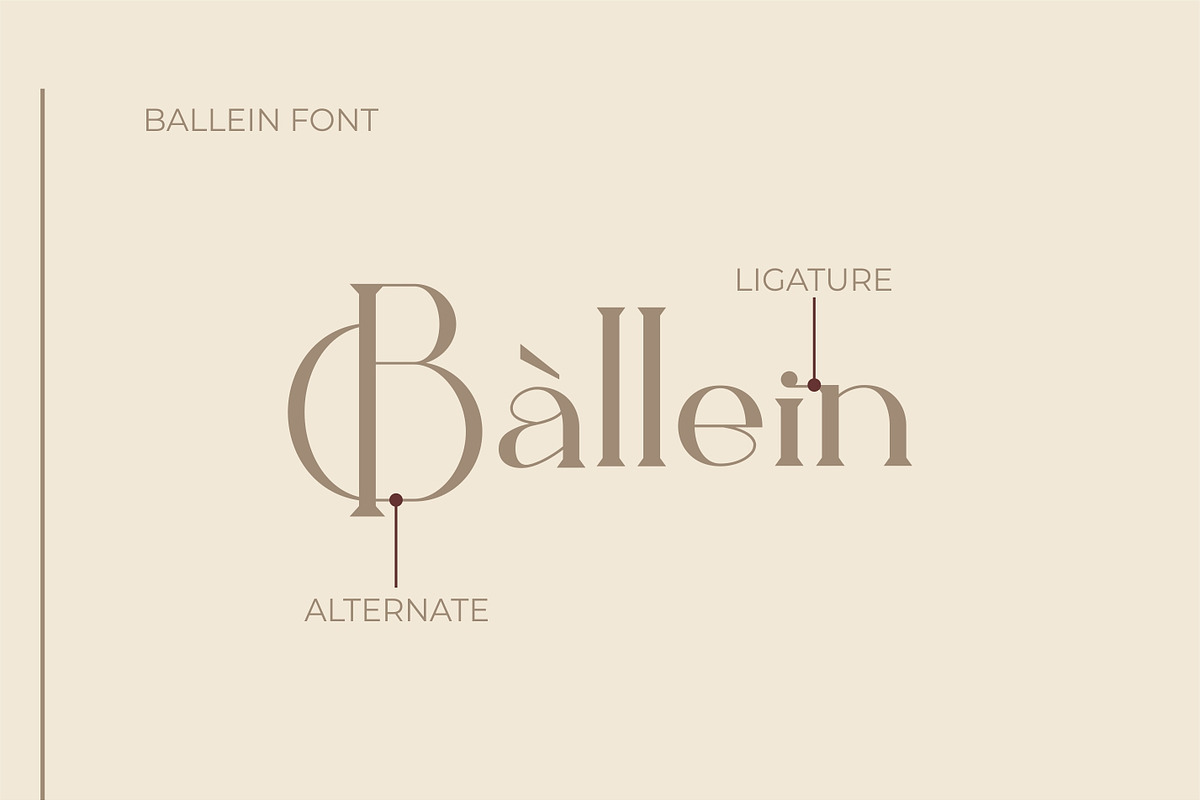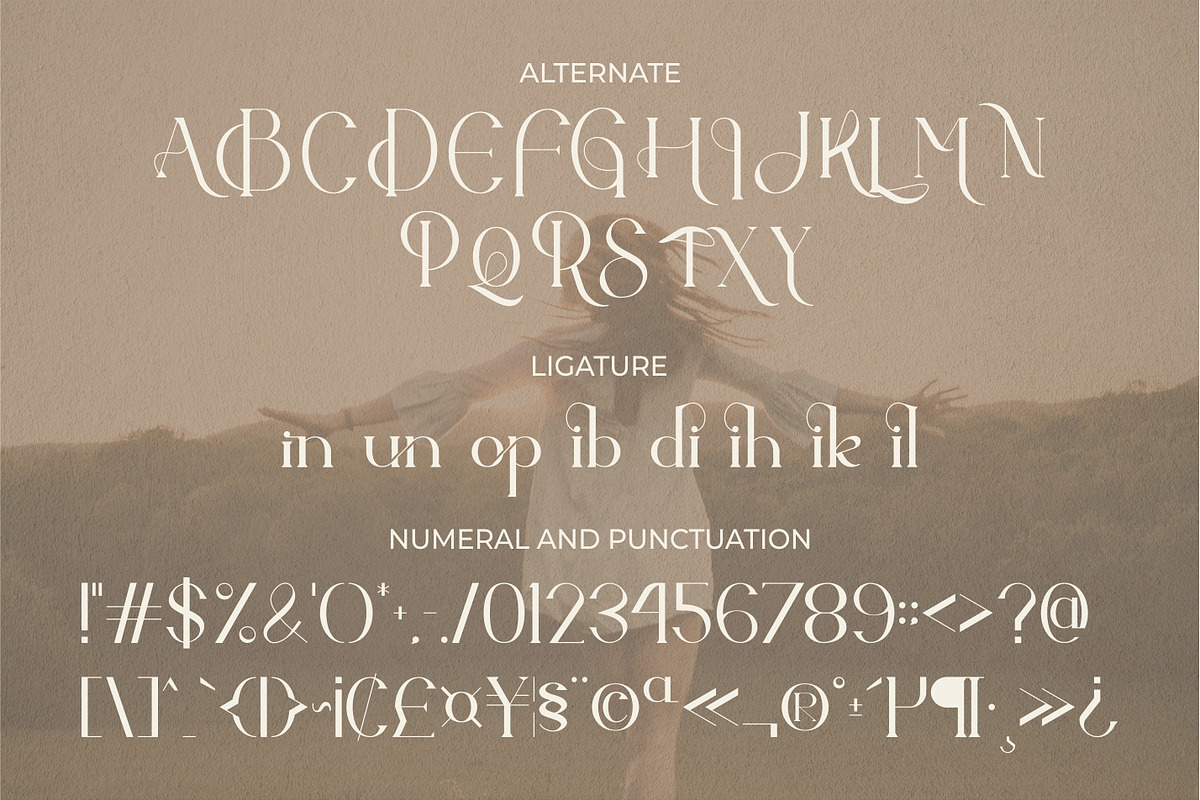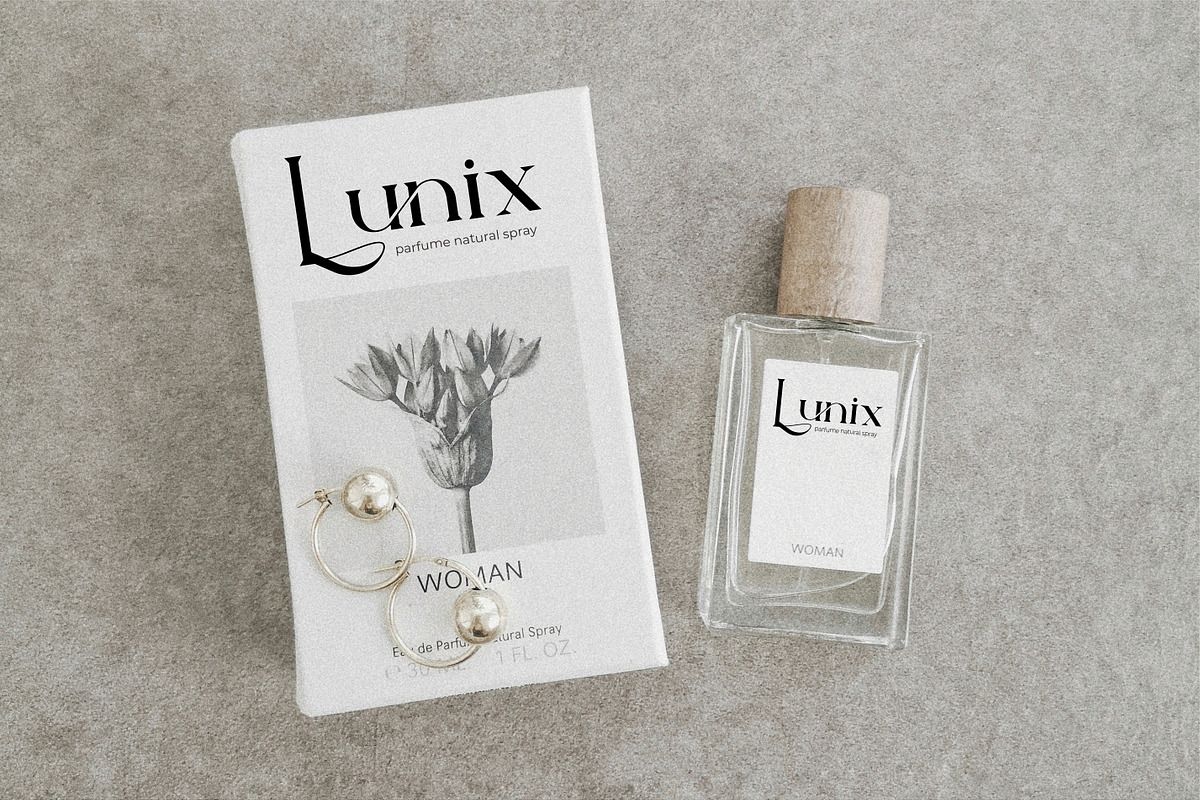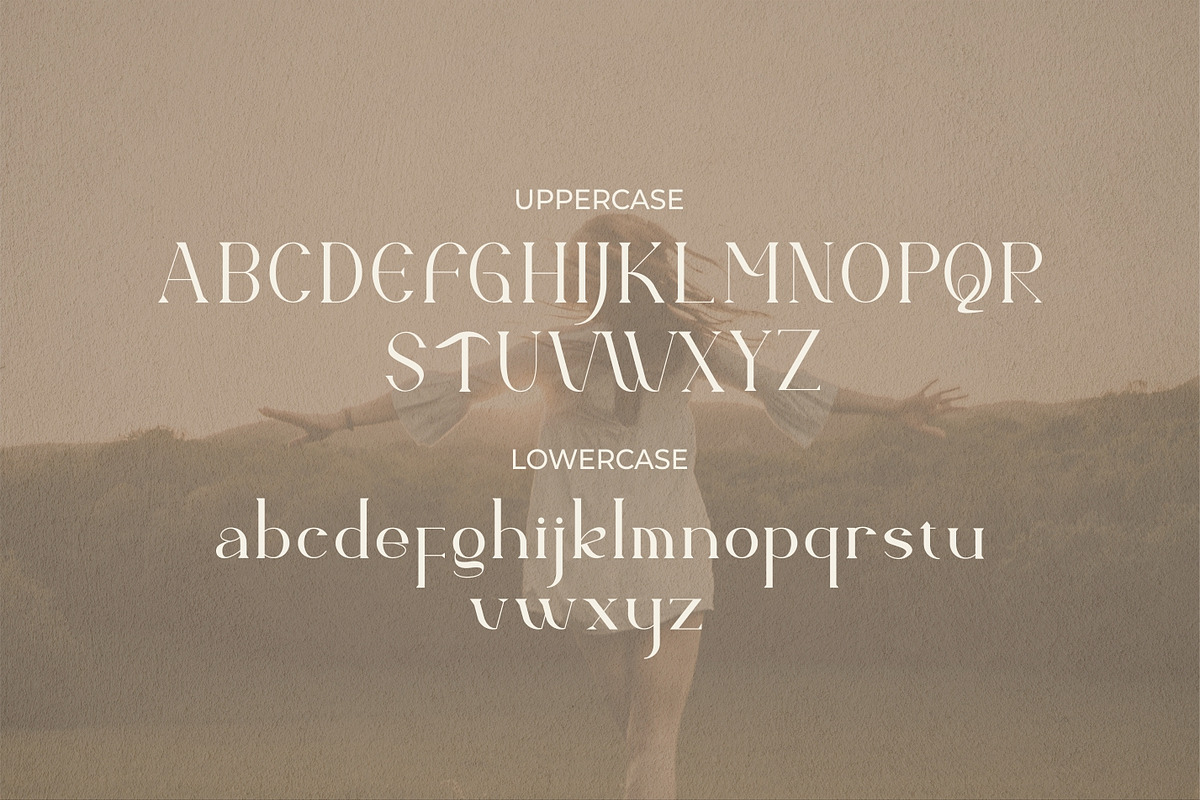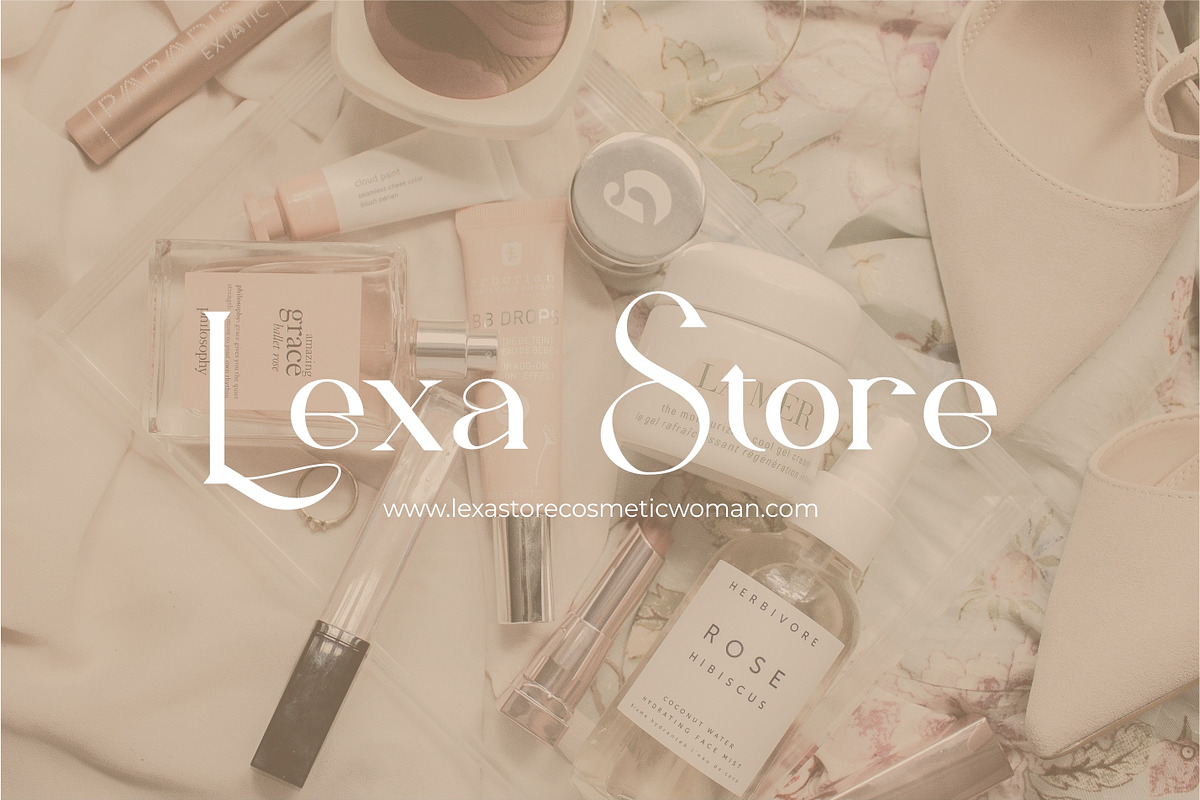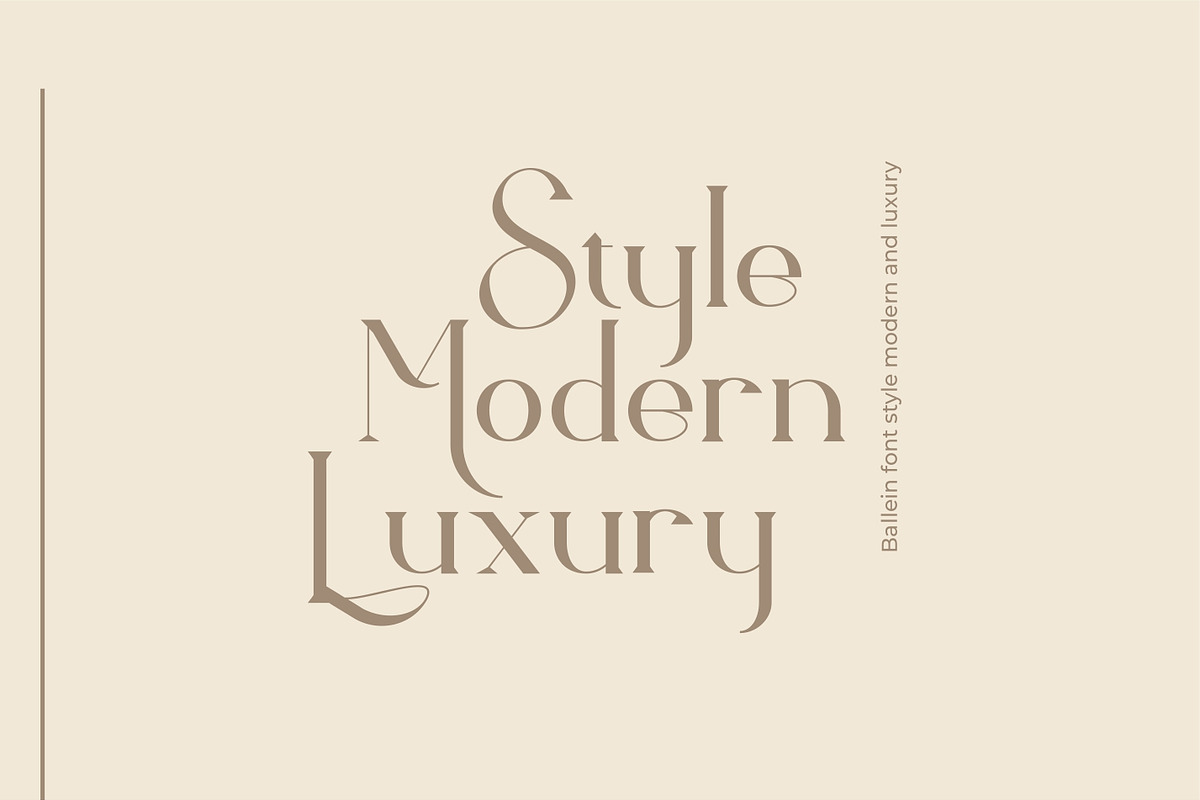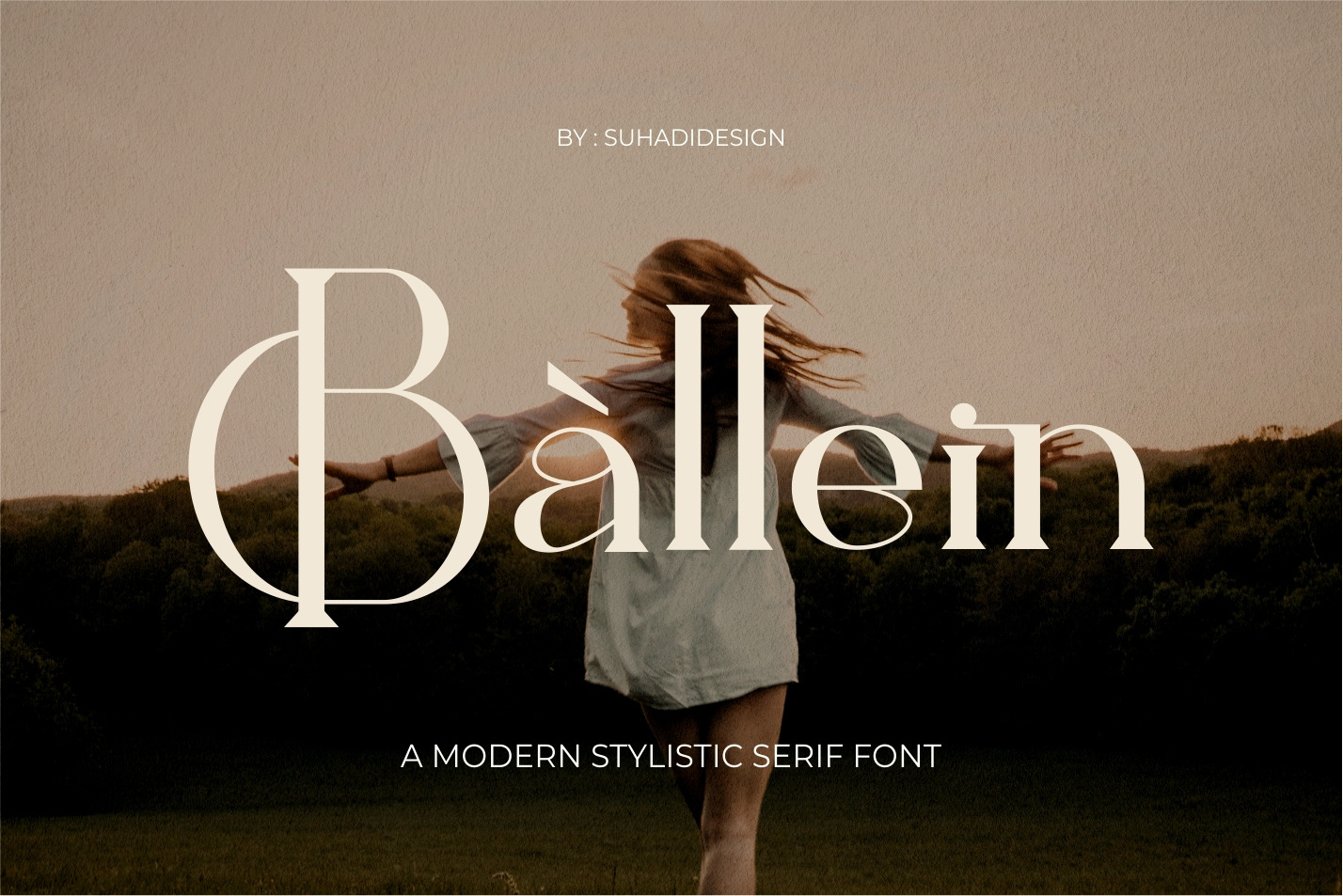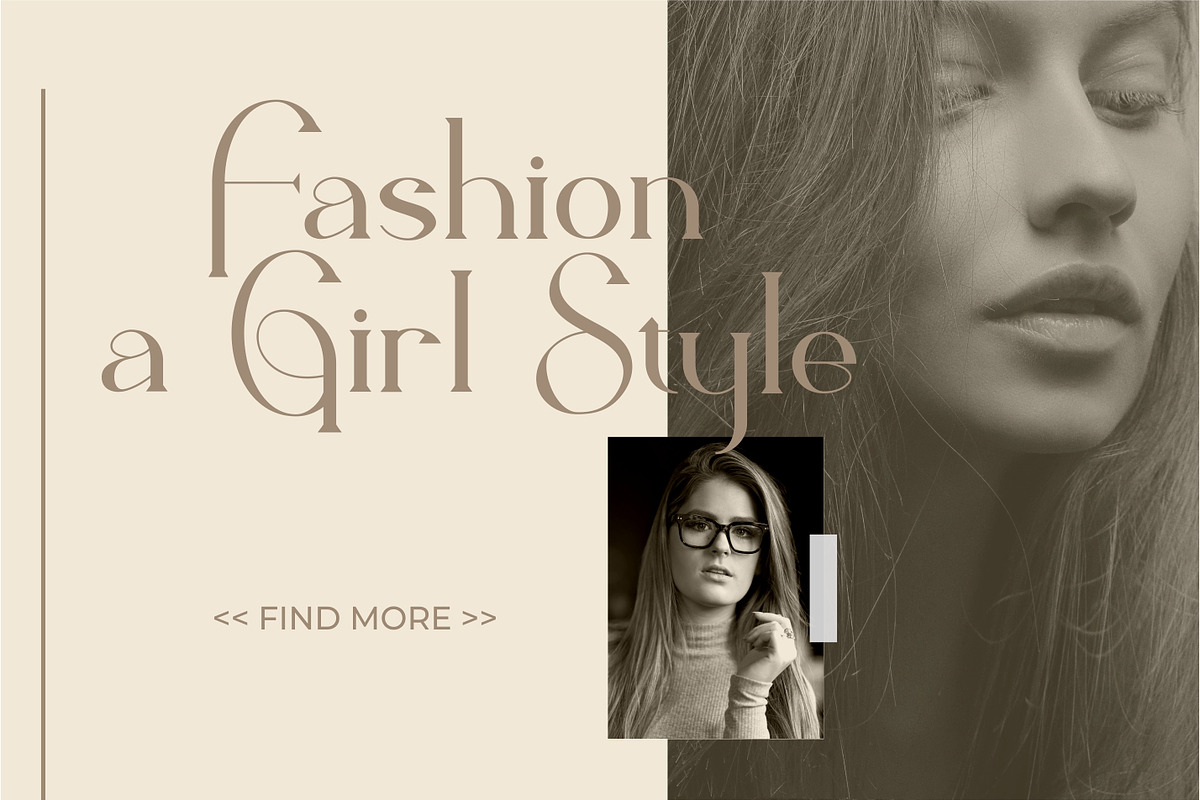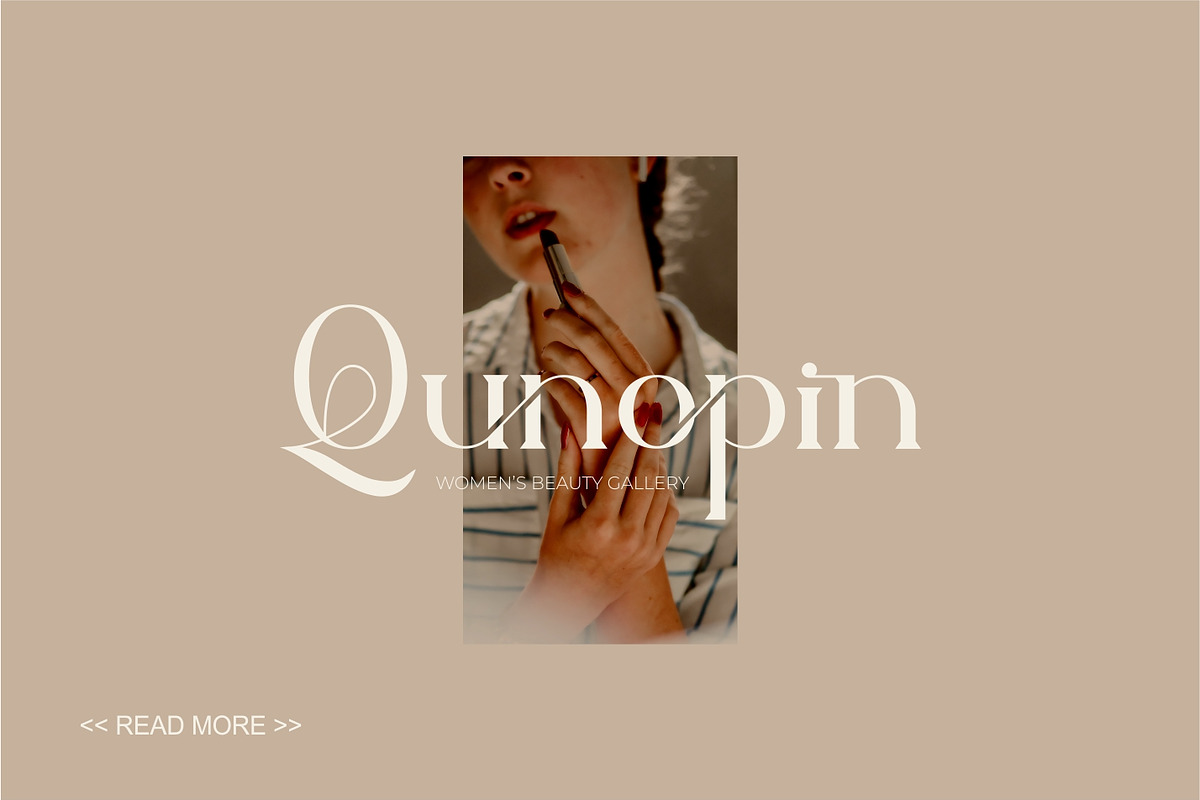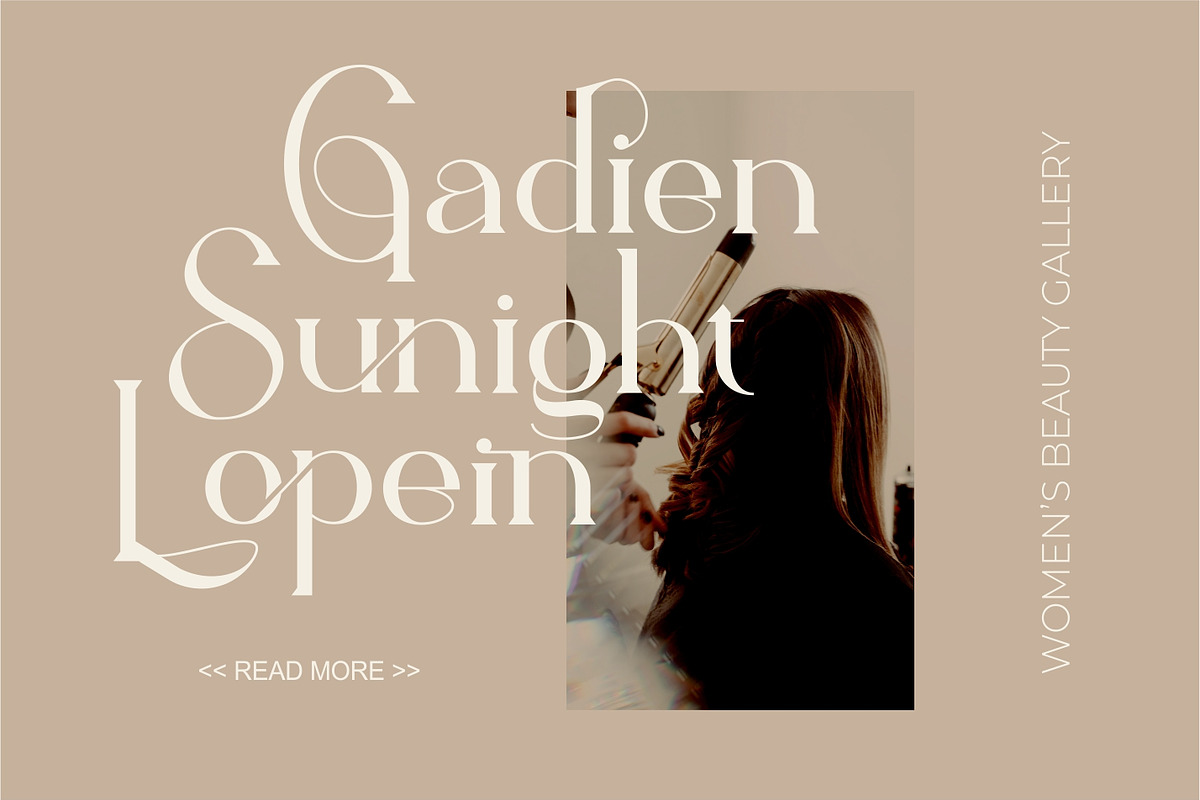
Ballein feminine serif font
Hi Ladies and Gentlemen! According to market demand, fonts are more likely to be modern fonts, so I decided to make this serif font that you have in mind. Ballein font is a very popular alternate and ligature serif font, comes in a modern style hoping to become a market favorite. We keep this font looking elegant, classy, easy to read, stylish, attractive and easy to use. Ballein Font is a great choice for beauty brands, magazines, newspapers, books, brand names, branding, brands, quotes, album covers and other projects. Ballein fonts are here to take your designs to the next level.
Ballein Font is my twenty-third Font made in 2022
• Standard uppercase and lowercase letters • Stylistic alternate choice of many uppercase letters • Ligature multiple font choices • Multilingual Support • Numeral and punctuation